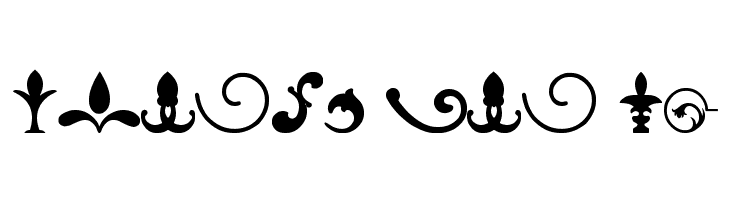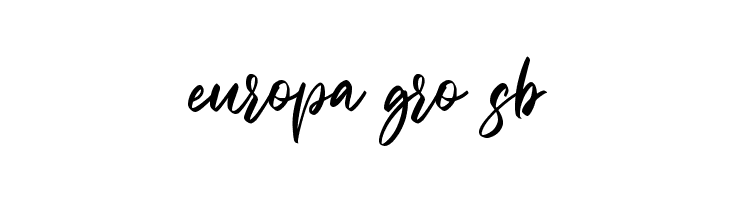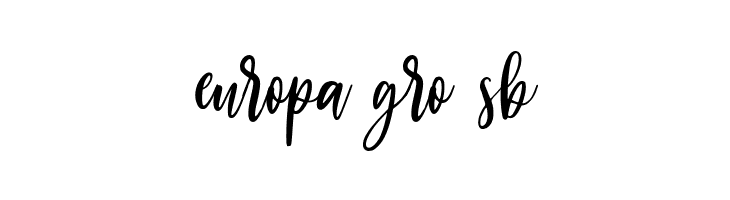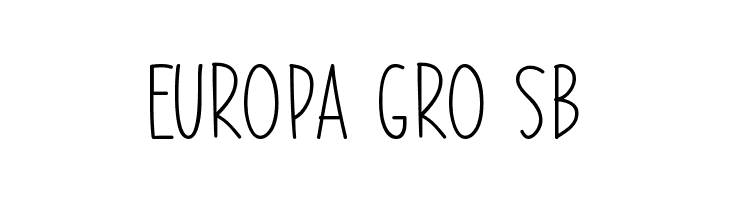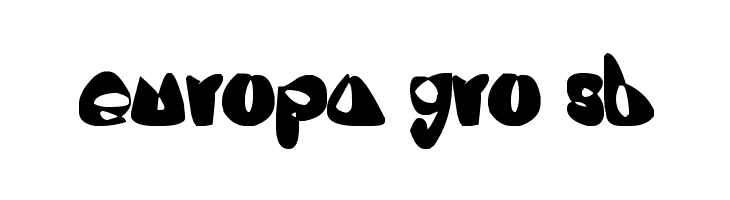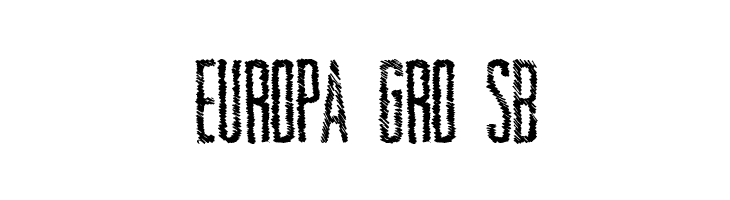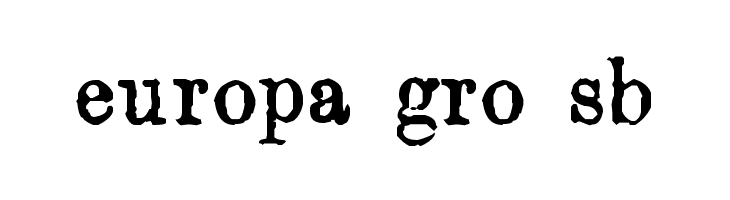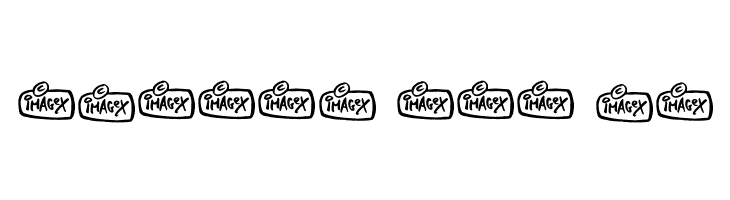
A lively comic-style font featuring dynamic onomatopoeic words and symbols.
A lively and expressive script font with a handwritten feel.
A bold, textured font with a sketch-like, dynamic appearance.
A lively and expressive script font with dynamic strokes and a handwritten appeal.
A bold, rounded font with an outlined, three-dimensional effect.
Ornate decorative elements with vintage and classical motifs.
A distressed, vintage-style font with a rough, textured appearance.
A clean, modern sans-serif font with uniform stroke width and balanced spacing.
A playful, handwritten font with tall, narrow letters and consistent stroke width.